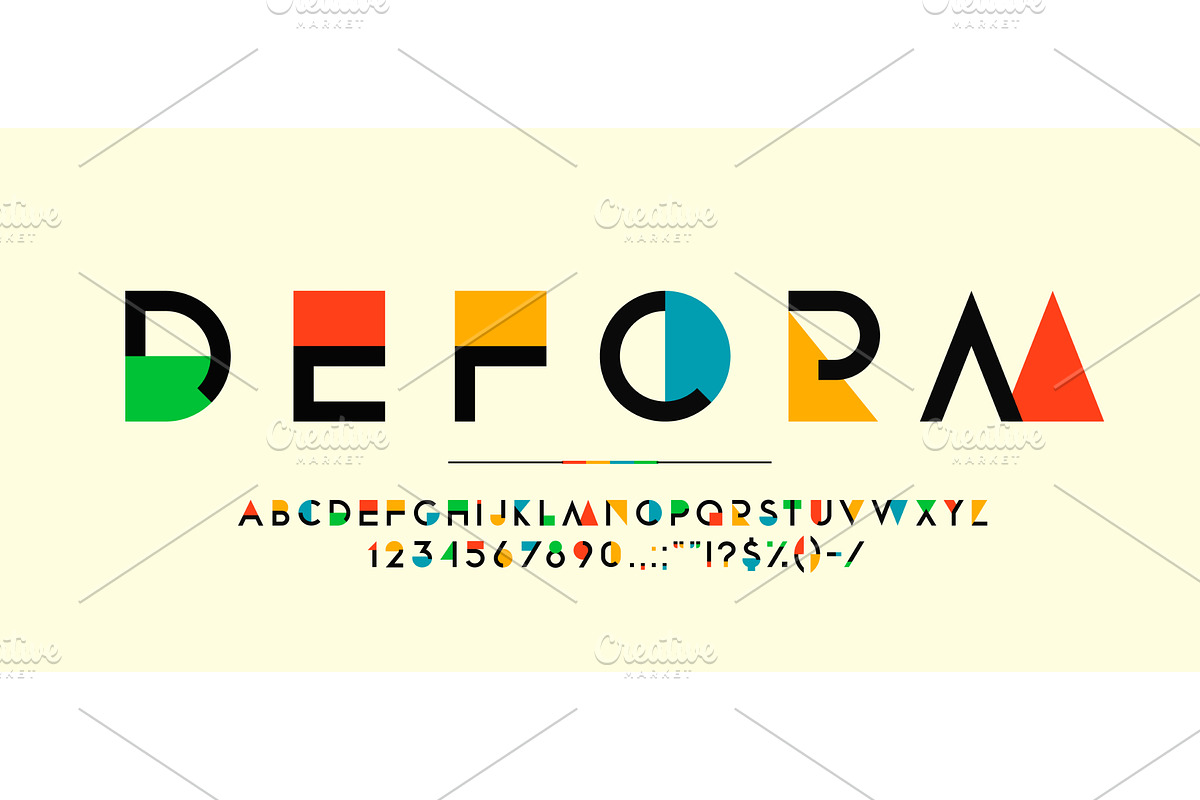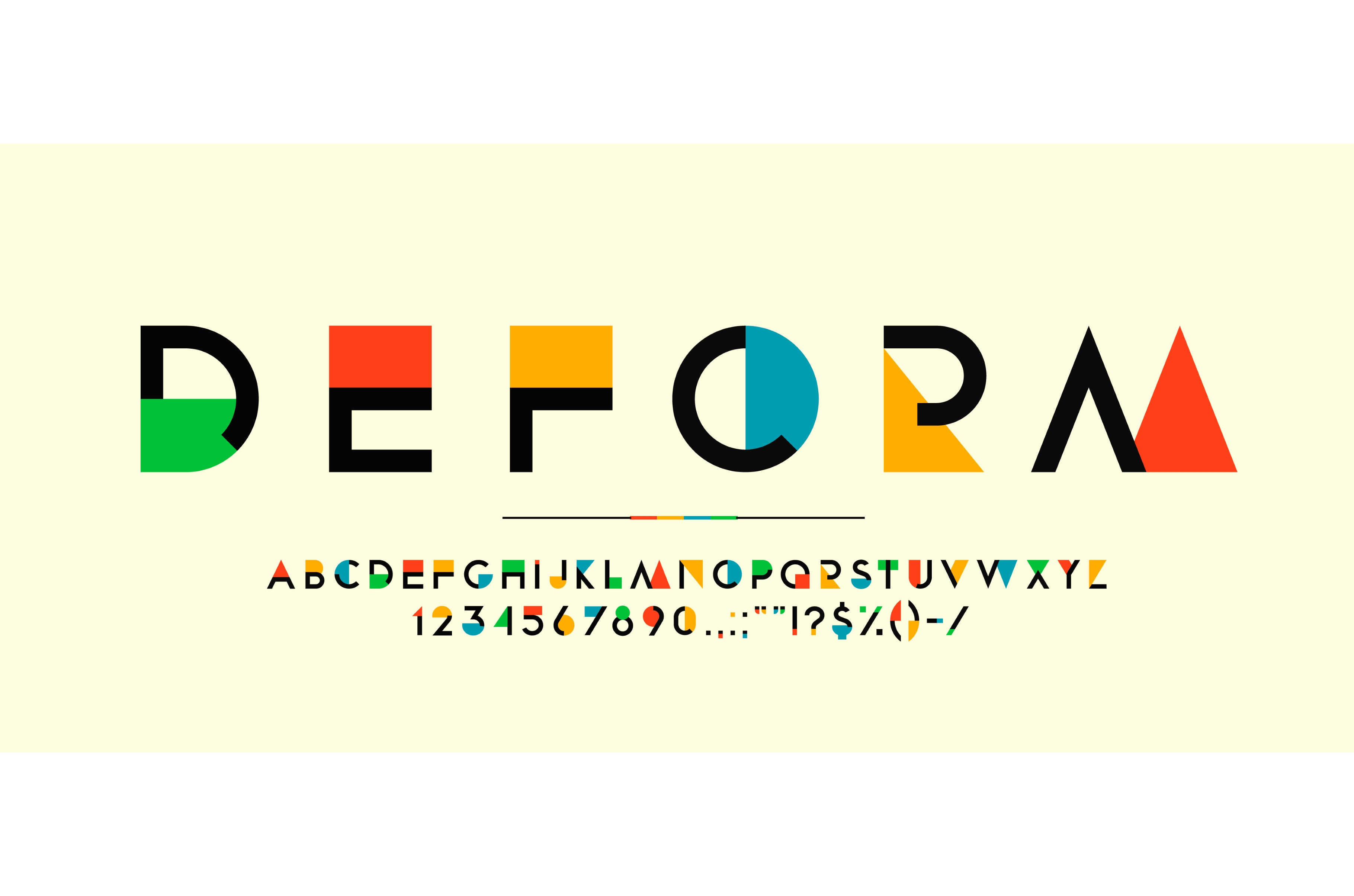
Color geometry font, modern art
Color geometry font, modern art type, creative english alphabet typeface vector typography set. Rainbow geometric shapes abc with abstract letters and numbers of colorful triangles, squares, circles